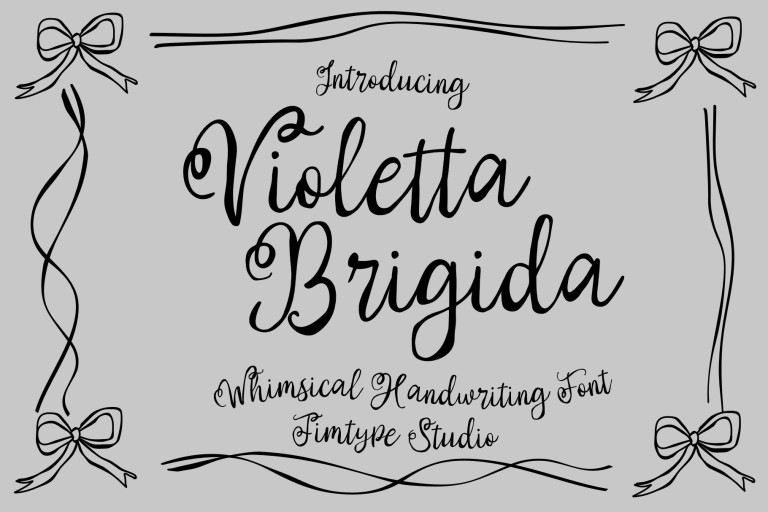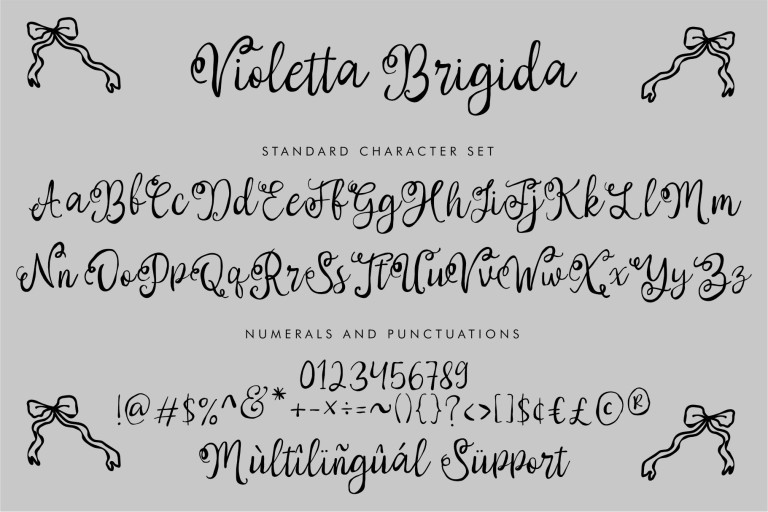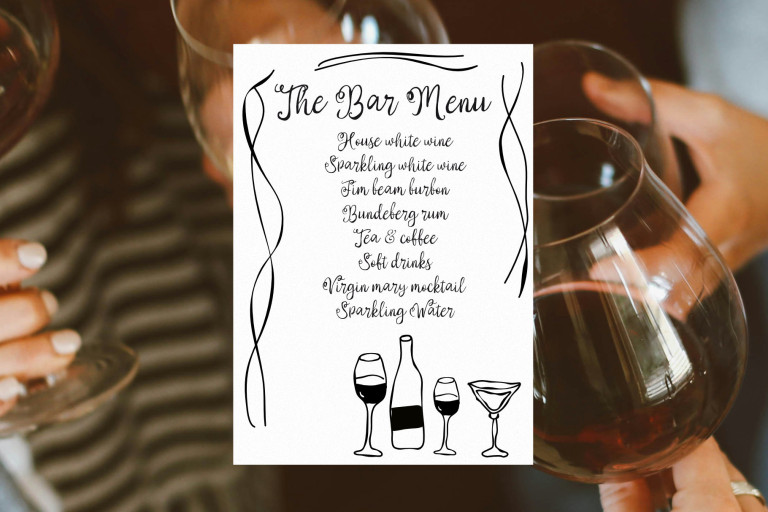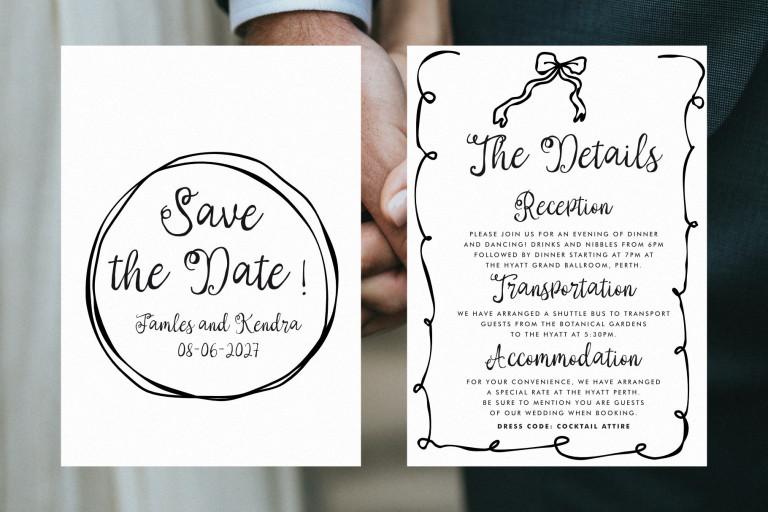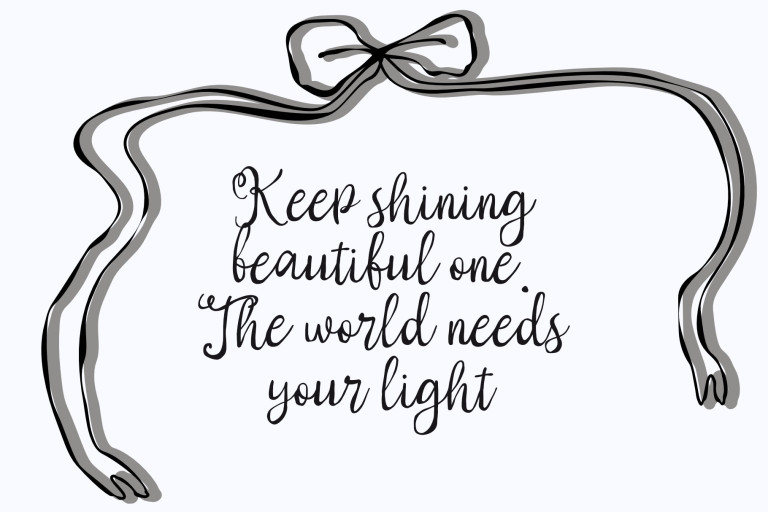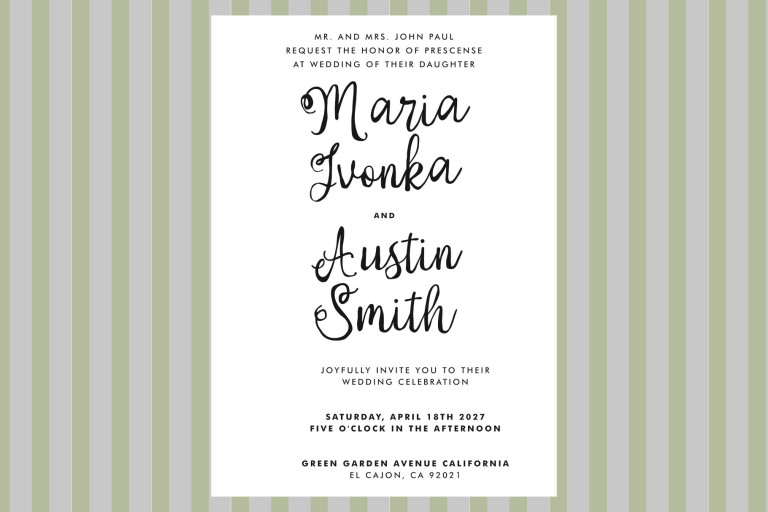
Violetta Brigida – Whimsical Business Branding Font from Jimtype Studio
Violetta Brigida – whimsical handwritten script font.
This is a handwritten font perfect for wedding invitation aesthetics and designs that require a natural touch. This font also includes elements or clip art to add a natural touch to the design.
This font is perfect for creating anything you desire, especially designs that require a natural touch such as logos, invitations, wedding cards, baby showers, birthday cards, decorations, fabric prints, and much more.
- Basic Latin A-Z and a-z
- Ligatures
- Numbers
- Punctuation